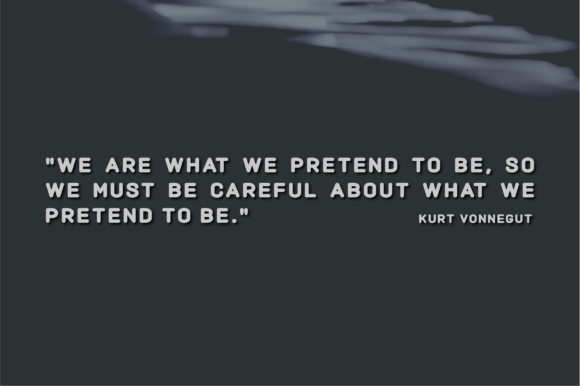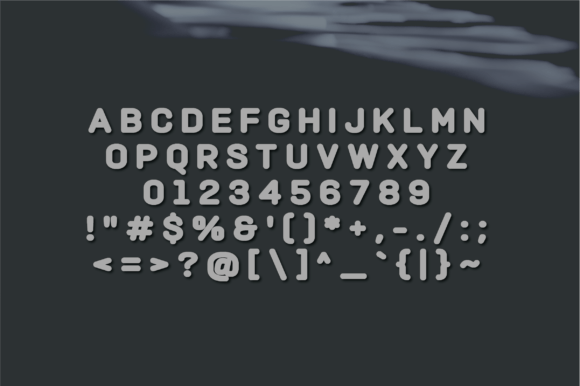
I still remember the frustration of working on a project, hours spent crafting the perfect design, only to hit a roadblock: finding the right font. My client wanted something modern, classy, and versatile – a font that would elevate their brand and make it stand out. I scoured the internet, tried out countless fonts, but nothing seemed quite right. That was until I stumbled upon **Boldhering Font**.
A Game-Changing Discovery
As soon as I laid eyes on Boldhering, I knew I had found the one. This stunning sans serif font has been a game-changer for my design projects, and I’m excited to share my experience with you. Whether you’re a designer, crafter, or creative hobbyist, Boldhering is perfect for a wide range of applications, from logos and weddings to invitations, quotes, and advertisements.
- ✨ **Versatility**: Boldhering is incredibly versatile, making it suitable for various design projects.
- ✅ **Modern and Classy**: Its sleek, modern design and classy feel make it perfect for high-end brands and projects.
- 💫 **Easy to Read**: The font is clear and easy to read, even at smaller sizes.
- 🎨 **Highly Customizable**: With OpenType features and glyphs, you can customize the font to fit your project’s needs.
While Boldhering is an exceptional font, there are a few minor quirks to be aware of:
- 🤔 **Limited Cyrillic Support**: Boldhering’s Cyrillic support is limited, so it’s essential to check the font’s compatibility with your project’s requirements.
- ⚠️ **Occasional Kerning Issues**: Some users have reported occasional kerning issues, but these can be easily adjusted in most design software.
The Story Behind Boldhering
Boldhering was designed with the goal of creating a versatile and modern sans serif font that could be used in a wide range of applications. The designer’s inspiration came from the world of fashion and luxury, aiming to create a font that exudes elegance and sophistication. With its clean lines, geometric shapes, and attention to detail, Boldhering has become a popular choice among designers and creative professionals.
| Font Name | Boldhering Font |
| Author | A Christie |
Q: What is the best use for Boldhering Font?
A: Boldhering is perfect for logos, weddings, invitations, quotes, advertisements, print, magazines, and more. Its versatility makes it suitable for a wide range of design projects.
Q: Does Boldhering support OpenType features?
A: Yes, Boldhering supports OpenType features, allowing for advanced typography and customization.